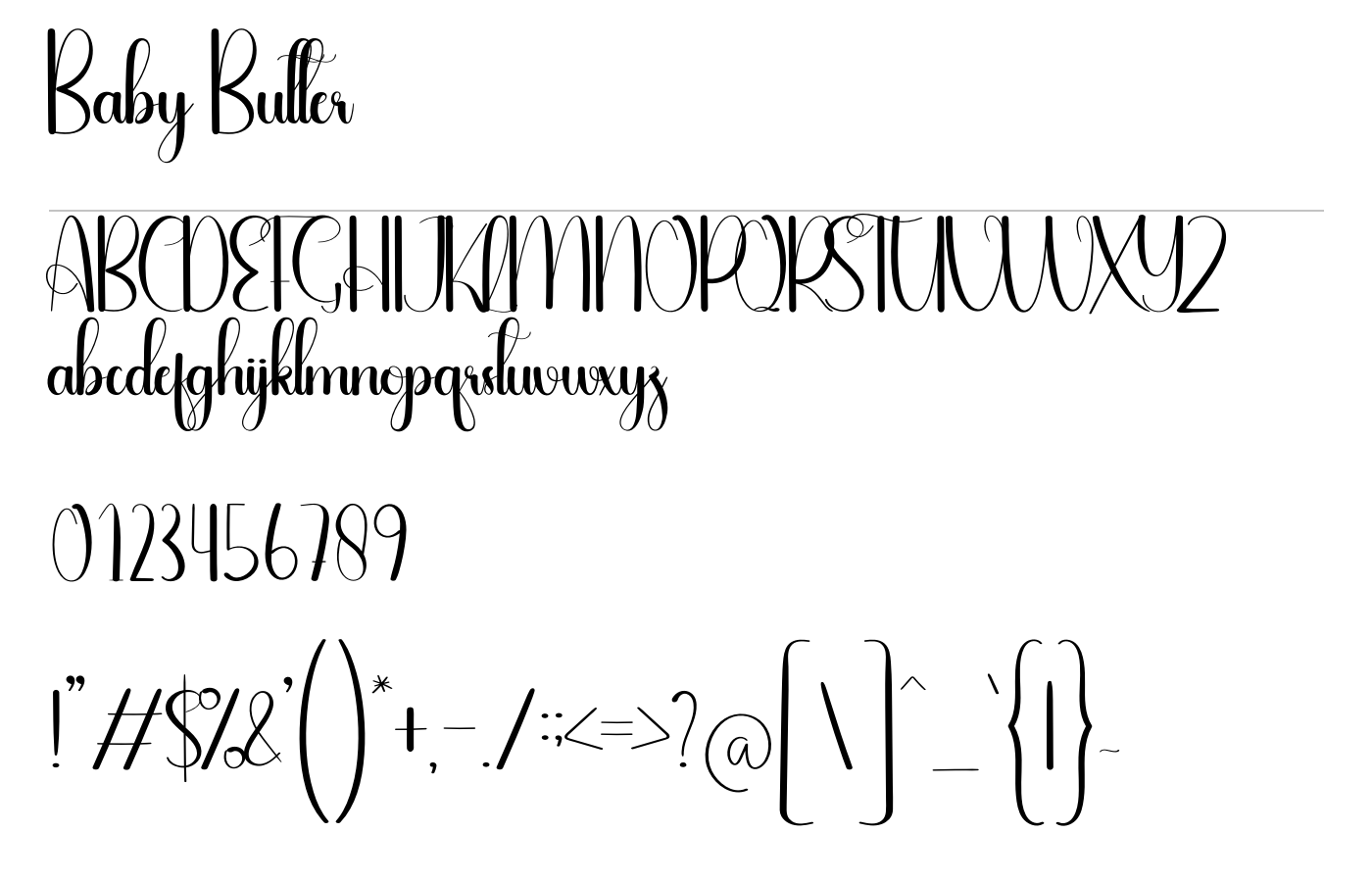
Baby Butter is a charming, thin script font that combines elegant, tall letterforms with playful swirls and delicate strokes. Its high contrast between thick and thin lines and unique flourishes give it a stylish yet approachable feel, making it perfect for creative branding, invitations, and feminine design projects where a touch of sophistication and whimsy is desired. This font shines in headlines and logo designs that aim to communicate elegance with a fun, modern twist.
Baby Butter Font